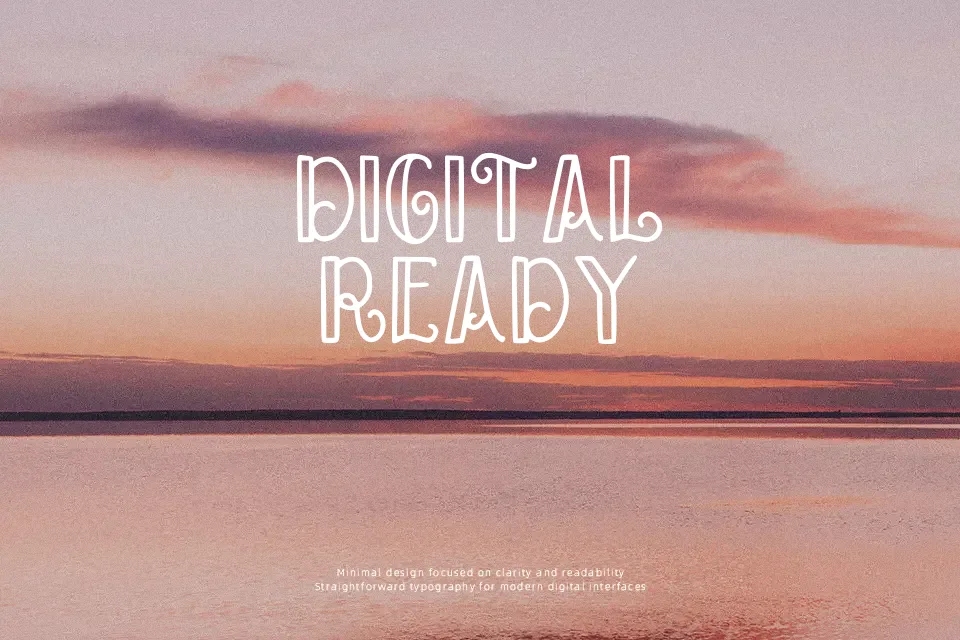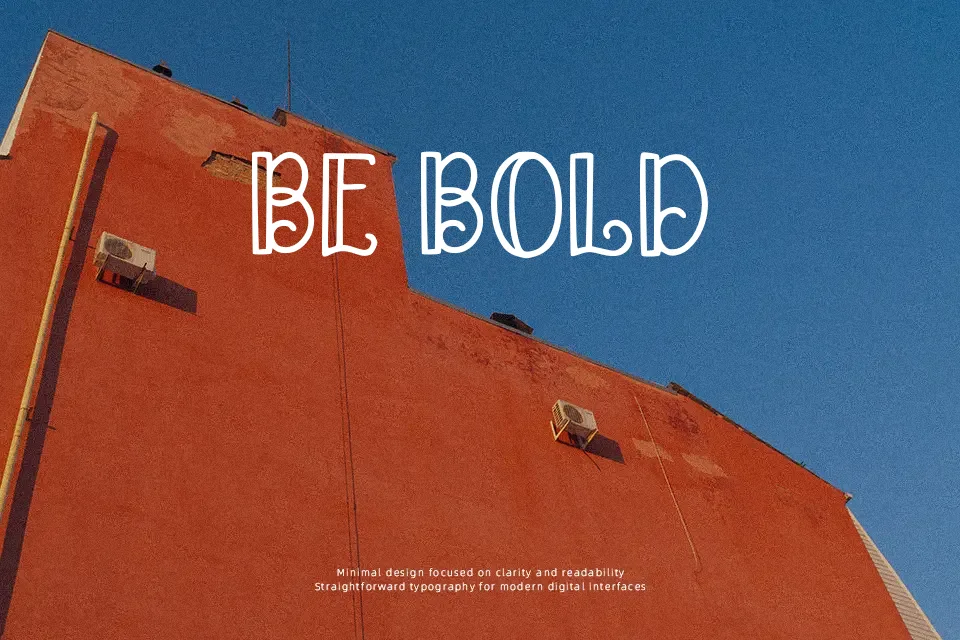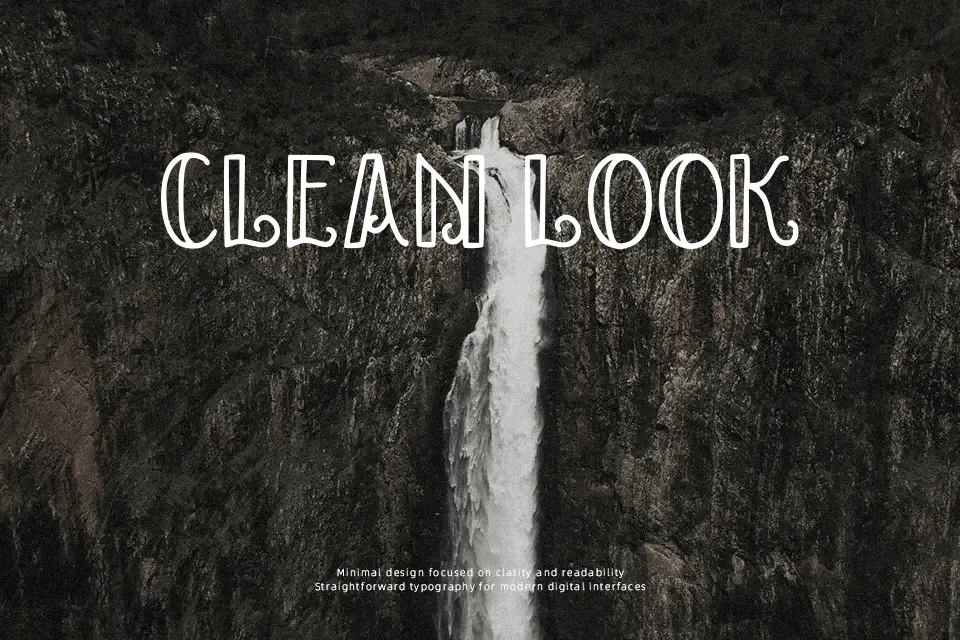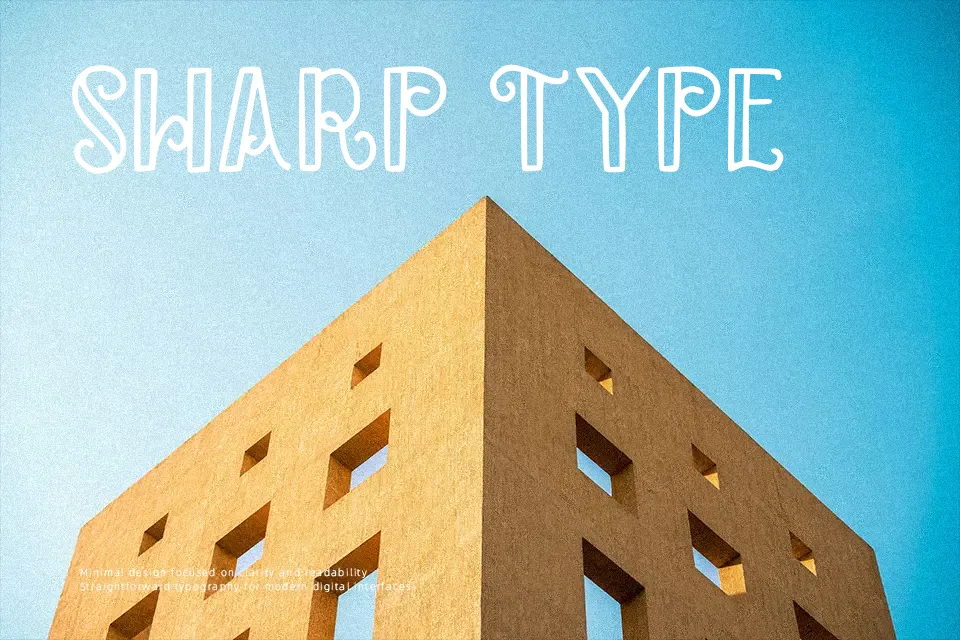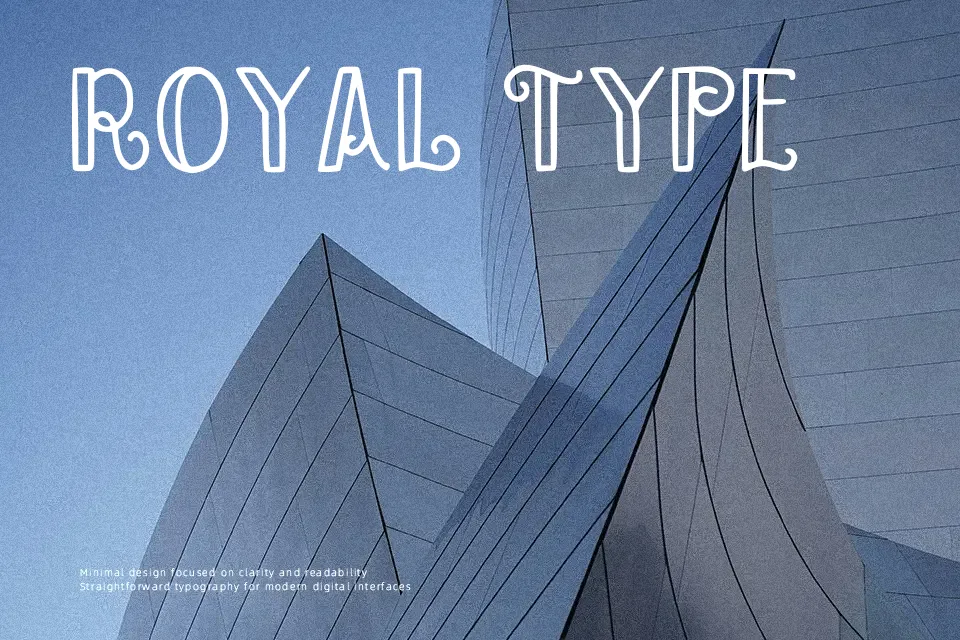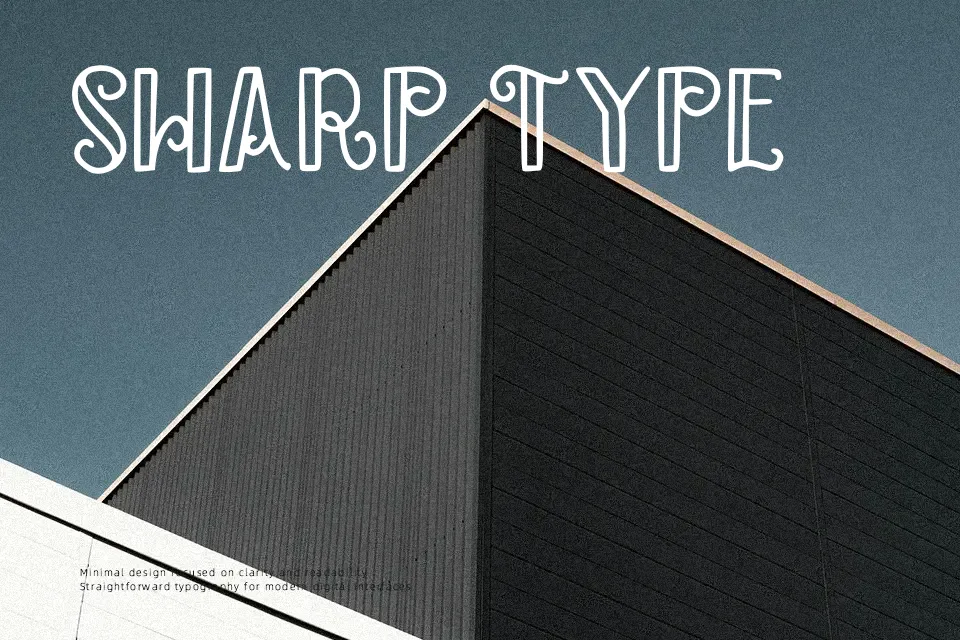
Baby Mayora Slab Font
Designed by Abo Daniel Studio
Baby Mayora Slab leans on chunky slab shapes with a soft outline and hollow interiors, giving each letter a crafty, cut-out look. Subtle curls, rounded terminals, and loose spacing create a friendly rhythm that feels casual rather than formal. It works well when you need a whimsical accent for children’s party graphics, nursery branding, DIY craft labels, or playful quote images on social media. However, the decorative outline and inner voids make it tiring in long paragraphs and tricky at very small sizes. Use it when you want a cute, standout headline; skip it for dense editorial layouts or serious corporate communication.
kids party invitation titles
craft-themed logo wordmarks
playful poster headlines
social media quote graphics
formal corporate branding
small-size body copy
Perfect for branding, kids, and logo, with a creative and decorative style.